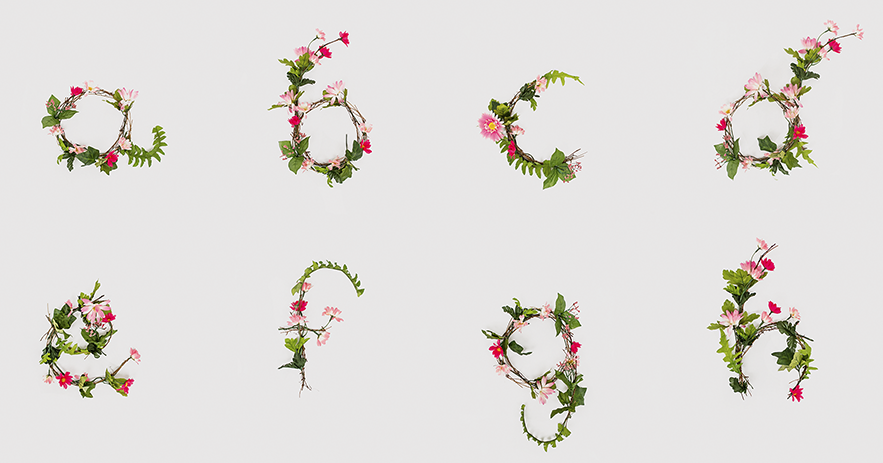
It’s no secret that we’re big fans of experimental typography here at TNW, and this “flower alphabet,” created by Maryland Institute College of Art (MICA) junior Anne Lee, is no exception.
Crafted by hand and photographed in her apartment, take a look below at Lee’s completed typeface, followed by progress shots that show how it was created.
HW: Why flowers?
AL: I happened upon these flowers and couldn’t resist! I was faced with an abundance of raw material and knew I had to use it in some way.
HW: What was the most challenging part of creating this face?
AL: I got back to my studio and started sketching basic letterforms. Making lowercase letters seemed more economical, because there are similar shapes within the letters and I enjoyed playing with the ascenders and descenders. It was challenging to make sure all of the letters were approximately the same size. I started with a circle for size reference and went from there.
HW: How you expect to use it in the future?
AL: I’m brainstorming ways to make the alphabet more accessible. Making posters and prints is the next immediate step. Turning it into a free display typeface for others to use is another possibility.